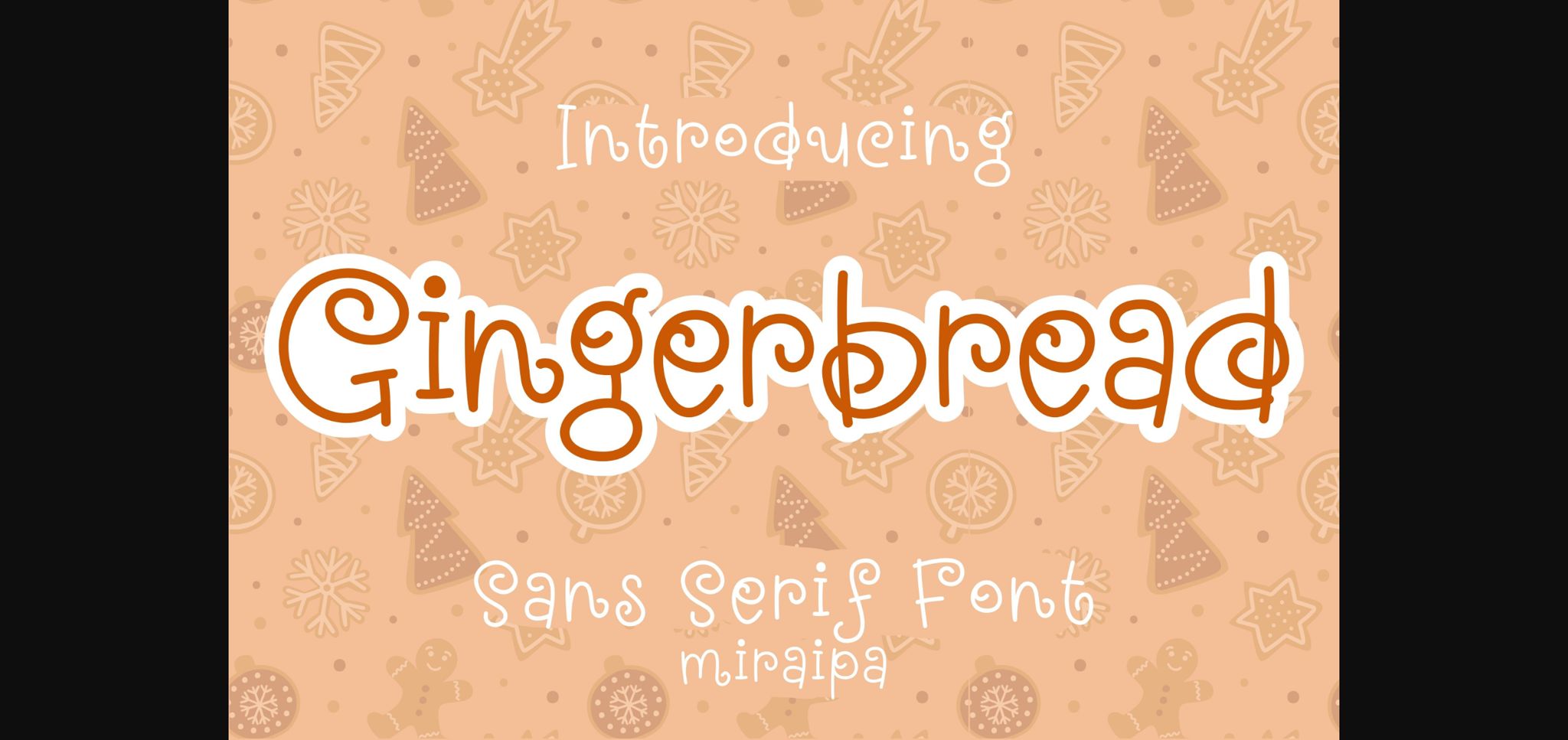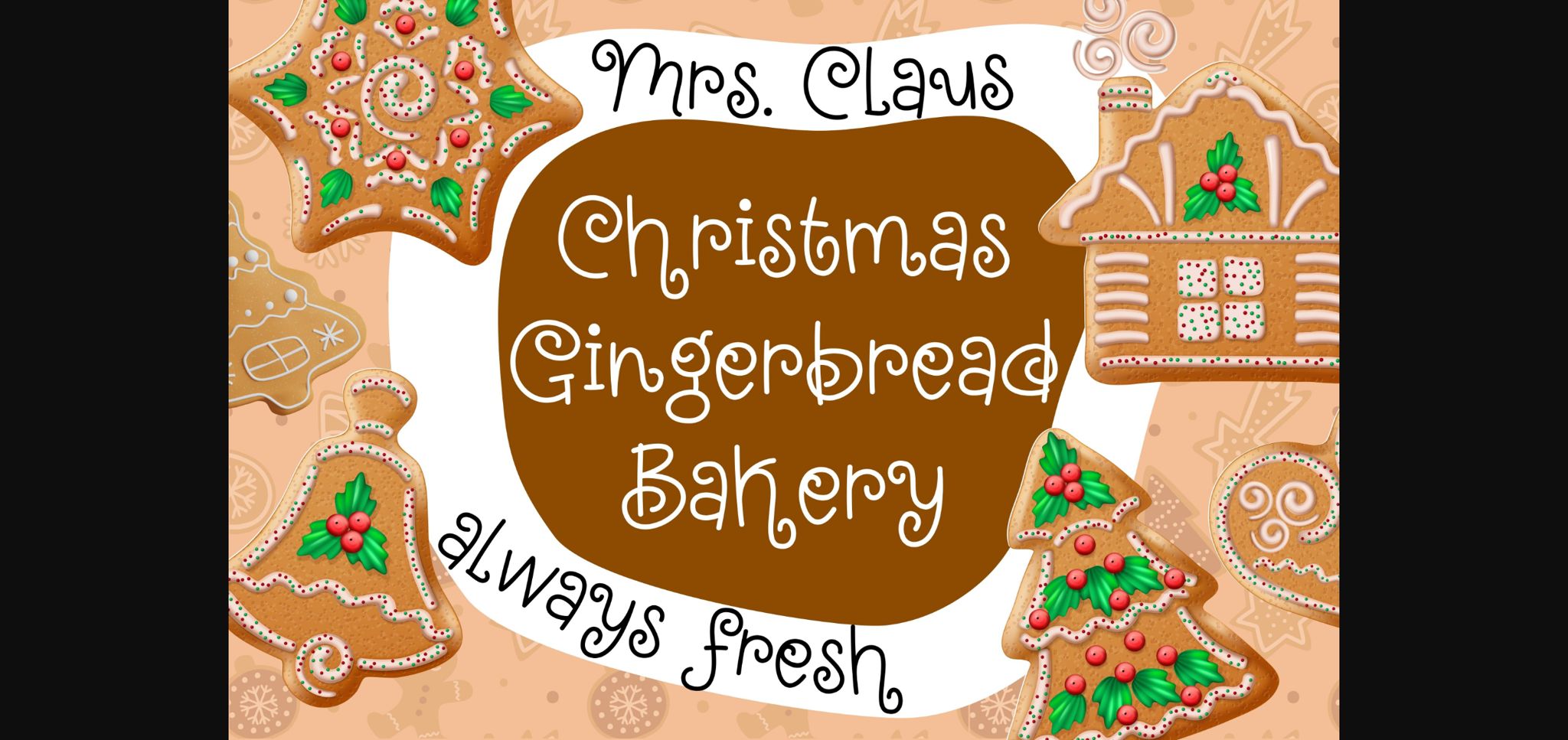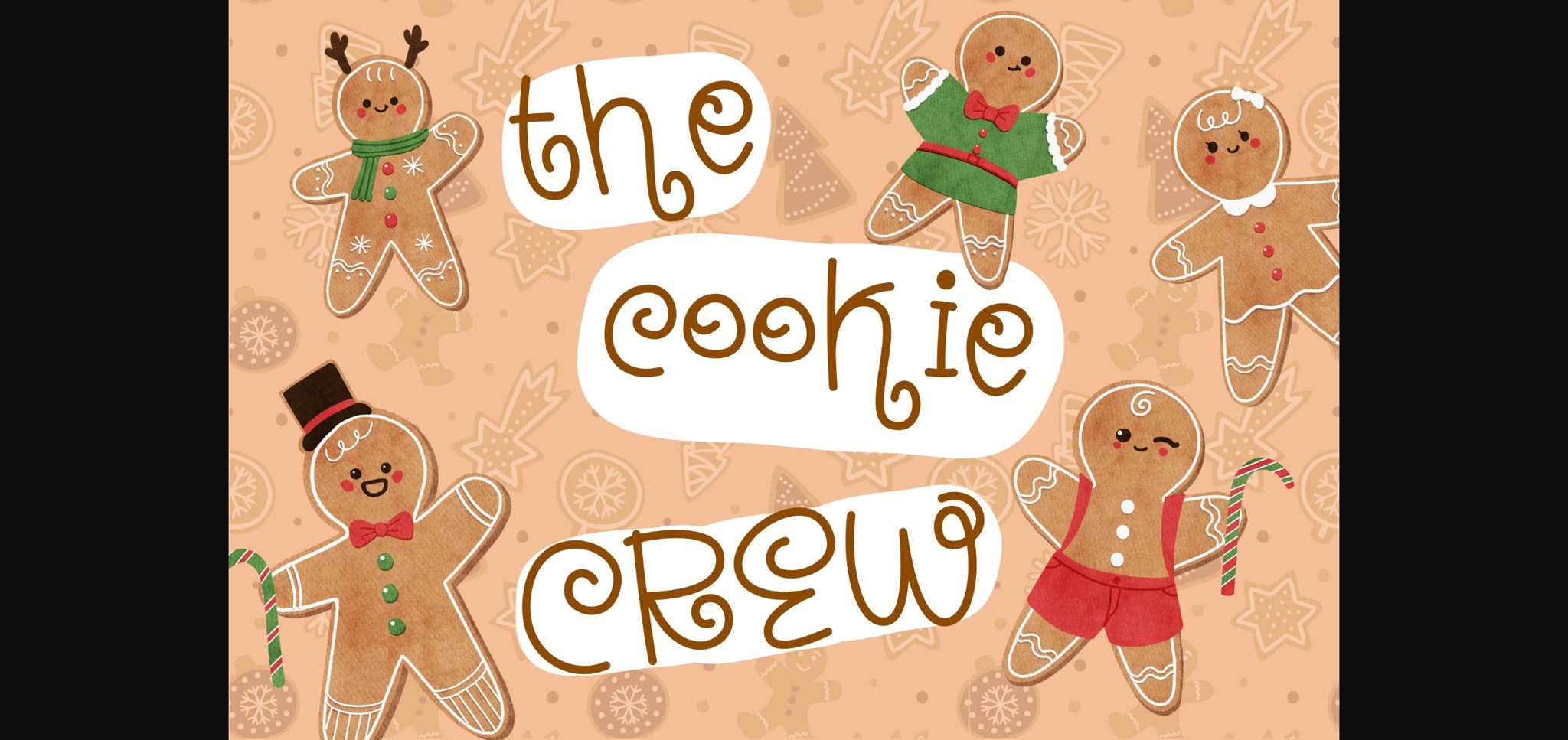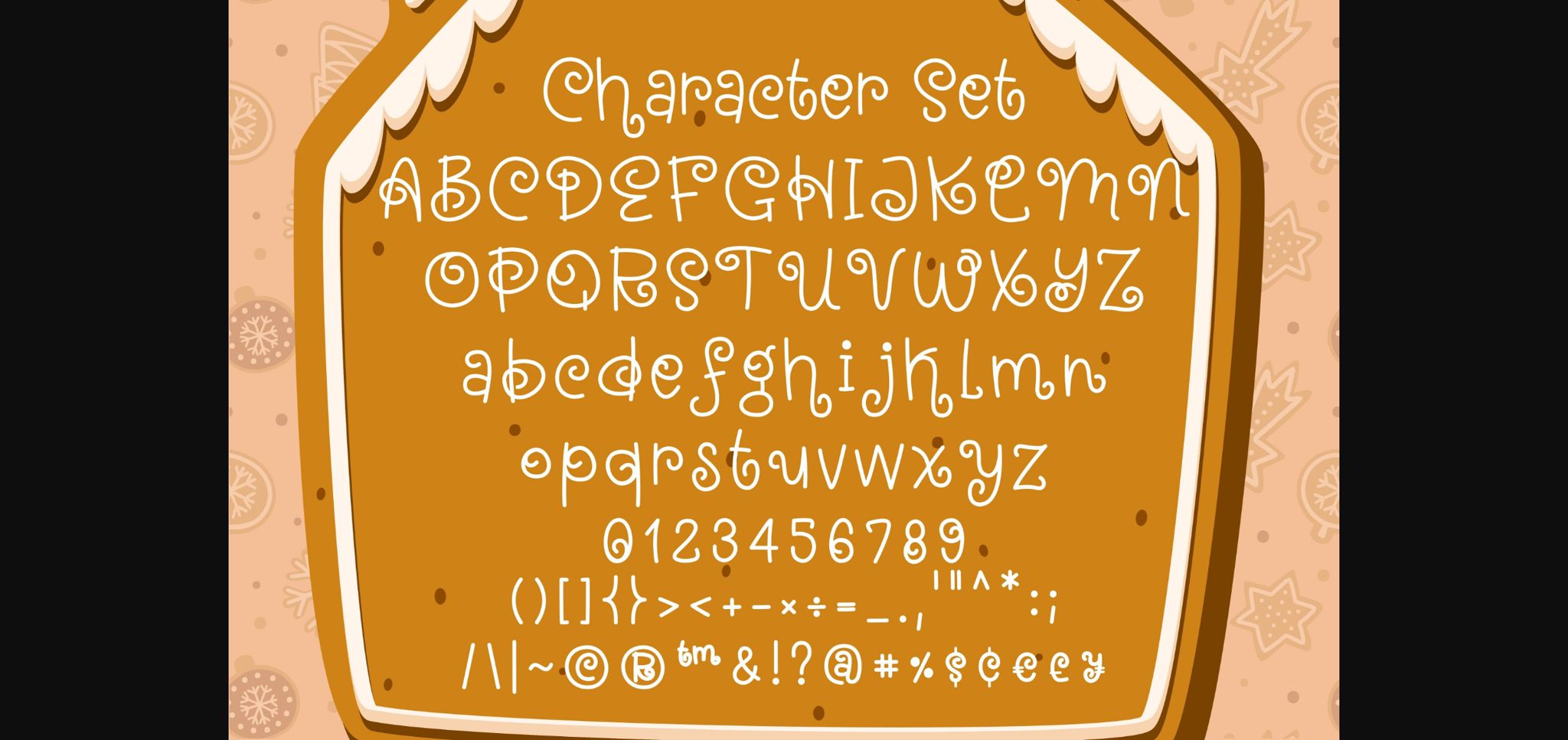
About Gingerbread Font
Gingerbread is designed in a cute and playful sans serif font style. It’s charming, whimsical, and a bit quirky. It would be awesome to your fun projects of Christmas. Let’s try it to your perfect projects such as Easter, back to school, wedding, party decoration, invitations, Fall, Halloween, Christmas, posters, blogs, clothing, child-related designs, greeting cards, social media posts or anything that needs a friendly touch. Add it now to your fonts library, and it will bring any of your DIY projects to life.